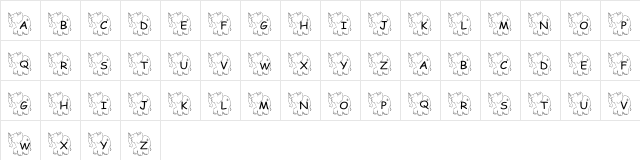
pf_oliphant1 Regular
Design Context for pf_oliphant1
pf_oliphant1 is a composed and adaptable typeface that performs quietly and consistently across a wide range of design contexts.